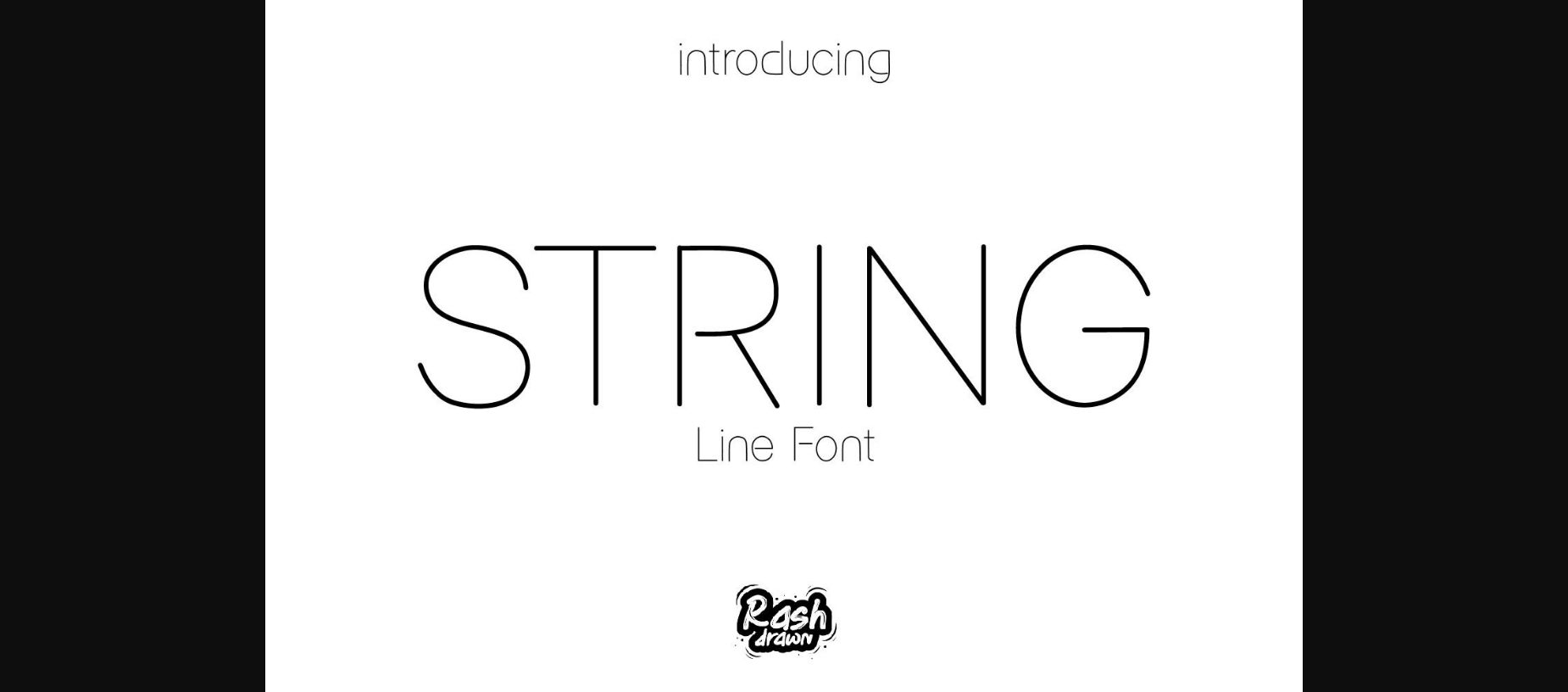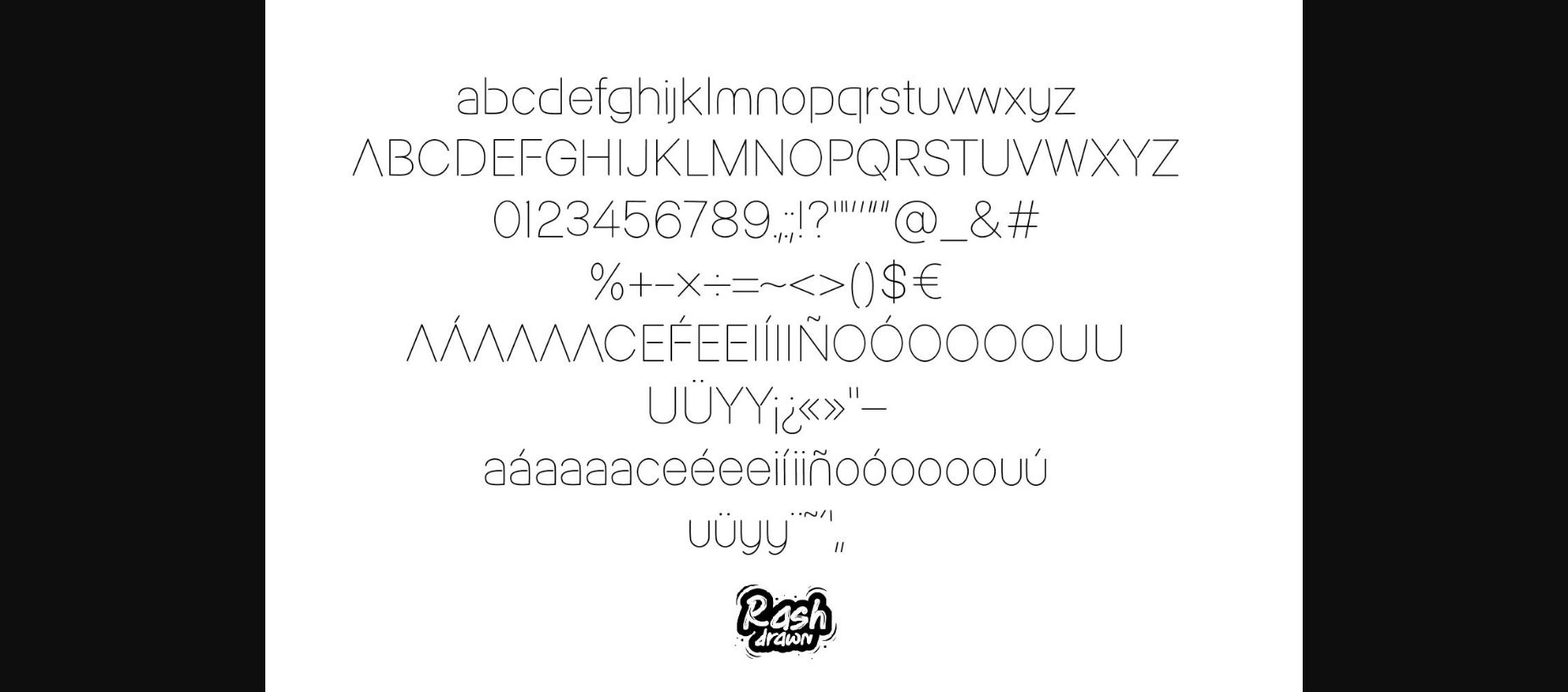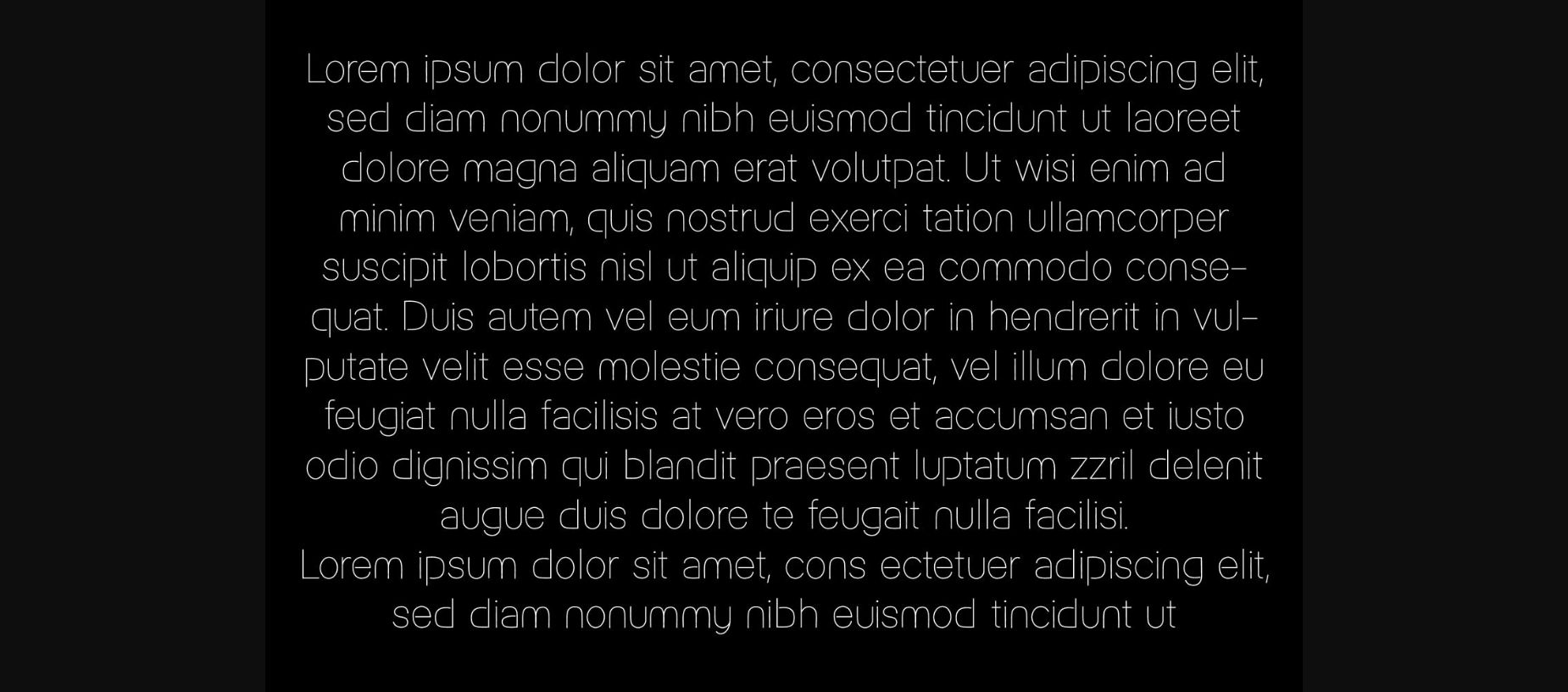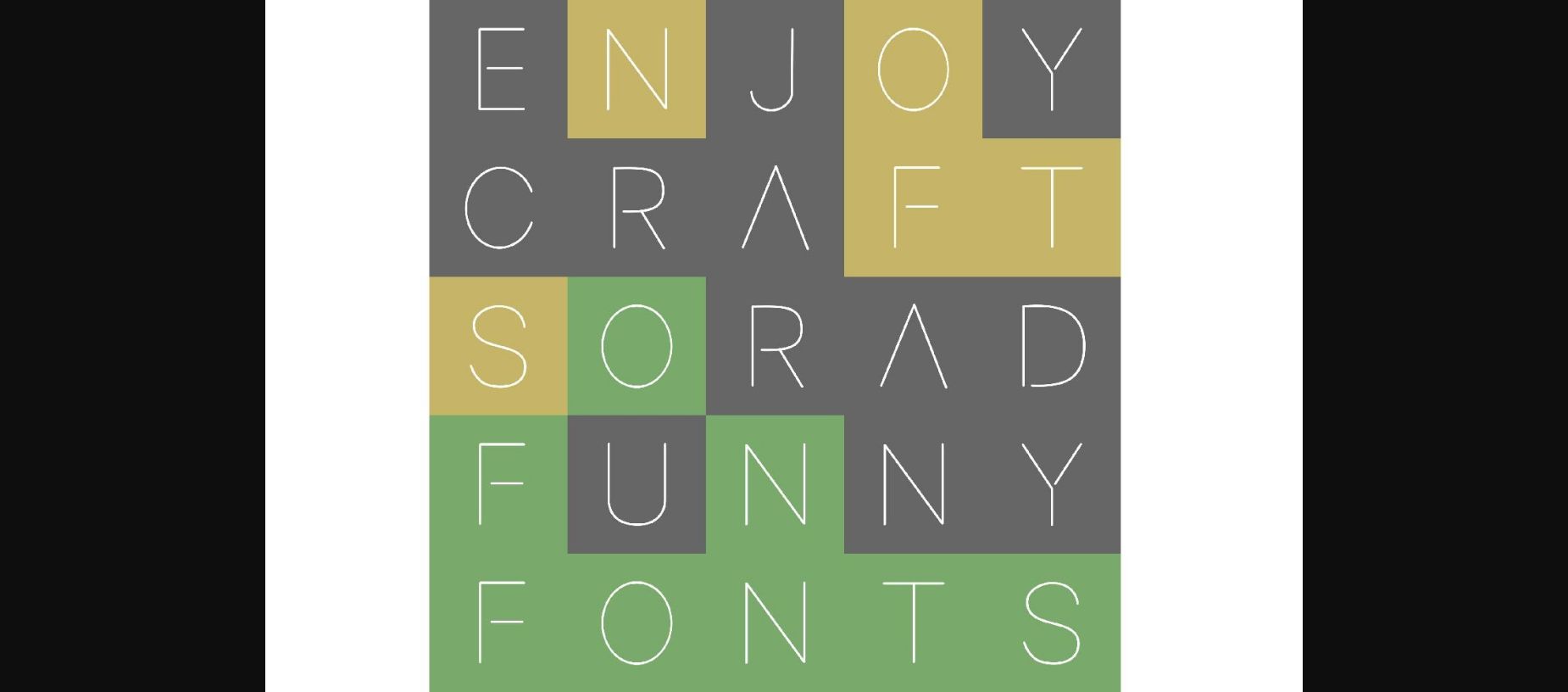
String Font
About String Font
String Hollow is a thin and dainty sans serif font. Its clean lines create beautiful geometric shapes . This gorgeous font can be used for logos, brand identity, headings, websites and so much more!